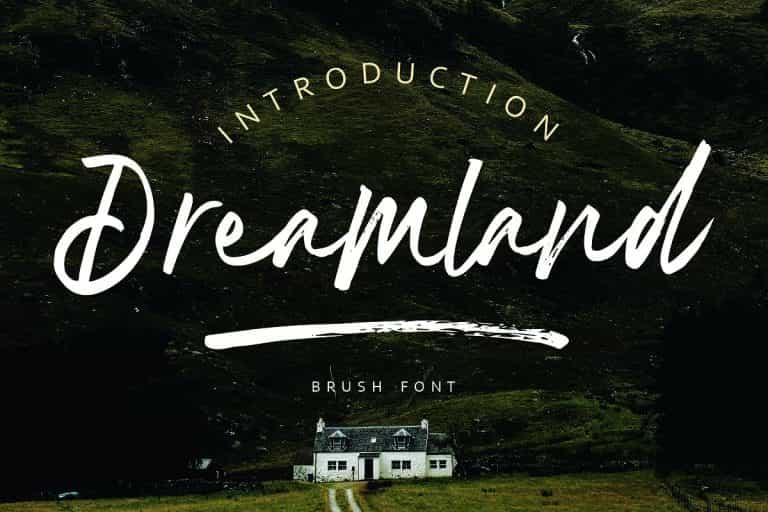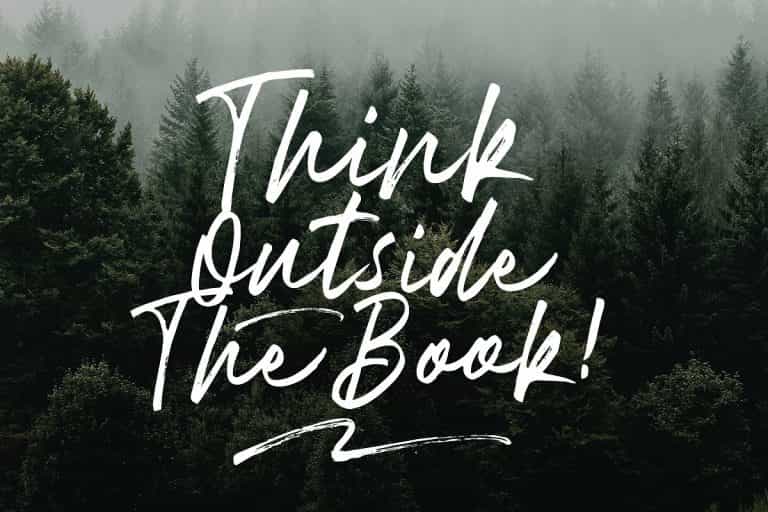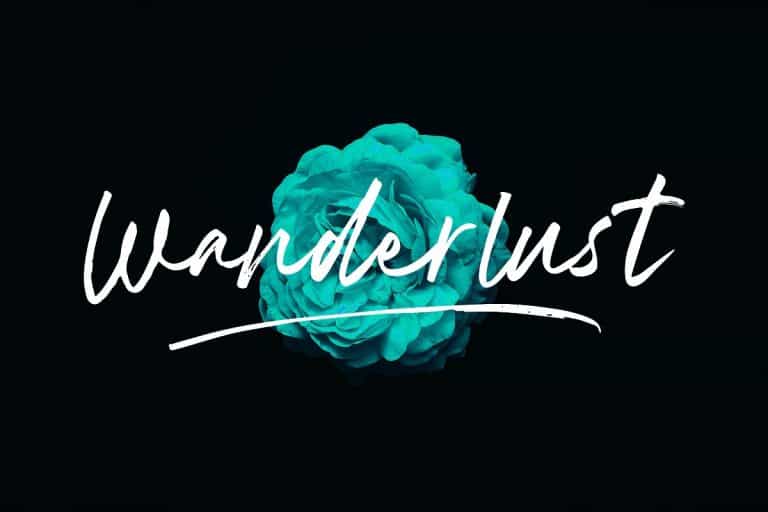
Discover Dreamland Brush Font, part of the Brush collection—a versatile and unique font perfect for adding a personal touch to your projects. Download it for free and enjoy crafting designs with style, from invitations to social media posts. This font is available exclusively for personal use, giving you the freedom to create without limits. Unlock your creativity with Dreamland Brush Font today!
Meet Dreamland Font. Dreamland is a handmade paper that was created for your daring projects, and writing will appear as if you wrote it on your own. In any situation, Dreamland is nightlife. Whether it’s wedding invitations, T-shirts, or cards, even Instagram posts – it’s a dreamland.